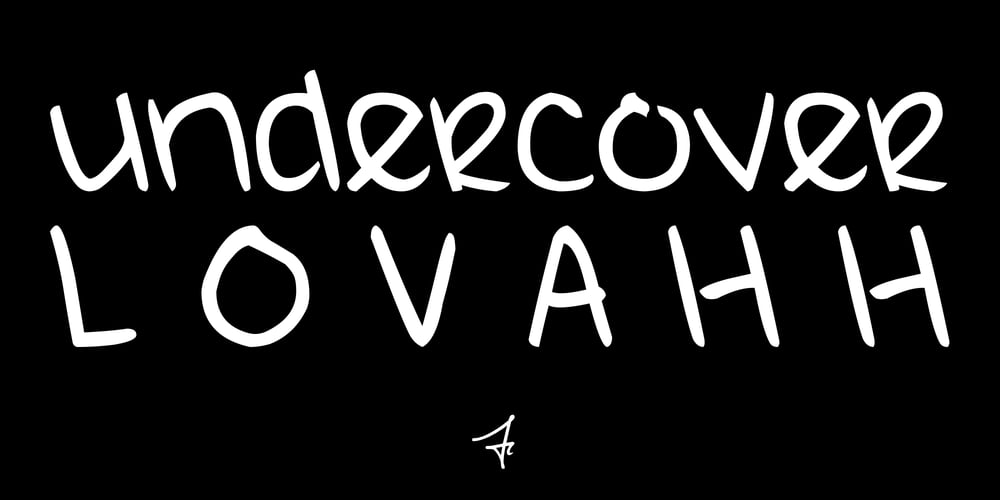
undercoverLOVAHH Font Family was designed by published by fawich. undercoverLOVAHH contains 1 styles and family package options. undercoverLOVAHH is a unique typeface based on the sprightly and smooth handwriting of an equally jubilant classmate. It contains a full set of uppercase and lowercase characters, as well as accented characters in the case of a love that knows no borders. With its bold appearance, undercoverLOVAHH is well-suited for headers, party invitations, and greeting cards, as well as projects that require an infusion of teenage spunk and personality that cannot be found elsewhere.